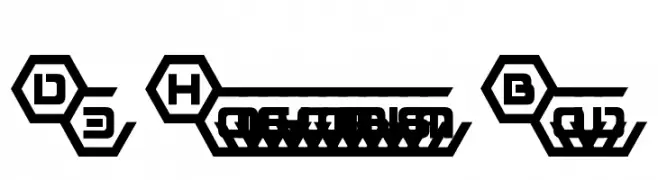
A geometric, futuristic font with bold, angular characters enclosed in hexagons.
A bold, hexagon-themed font with a futuristic and geometric style.
A bold, modern font with a diagonal striped pattern and geometric design.